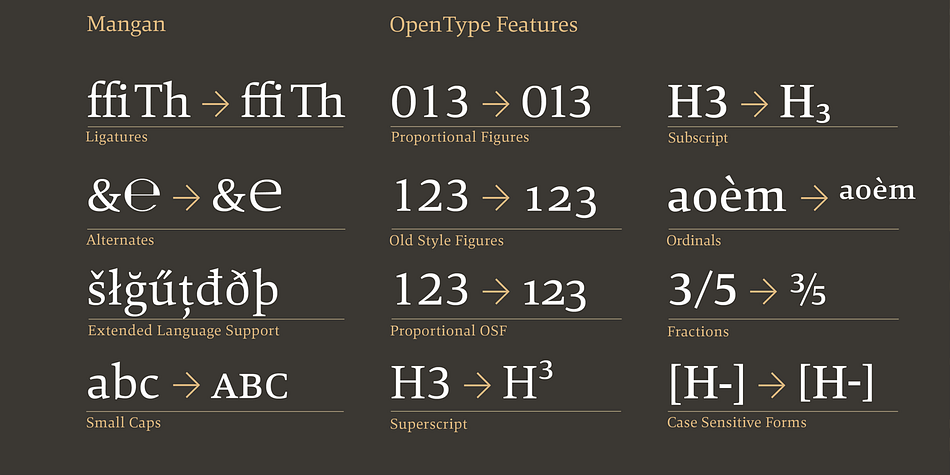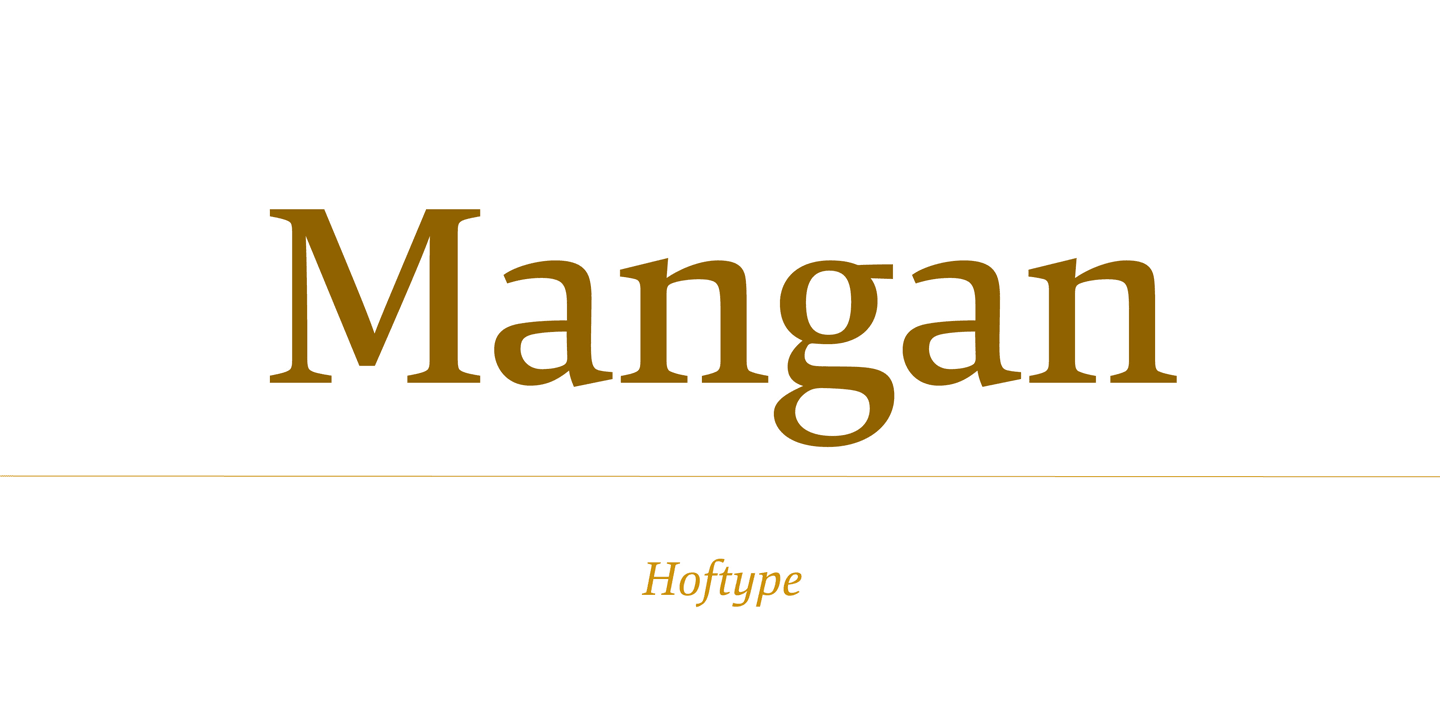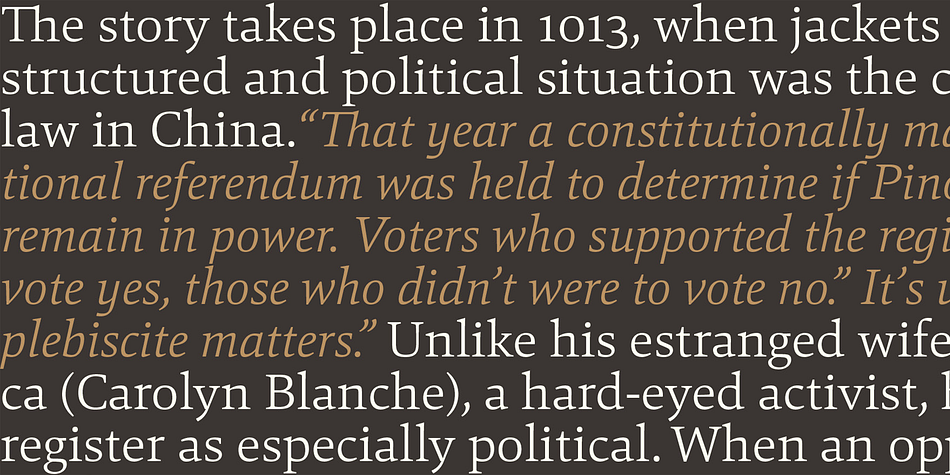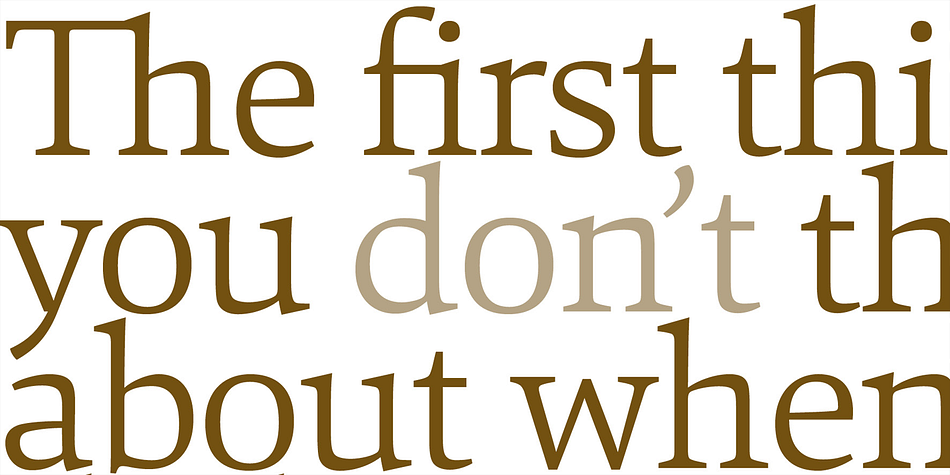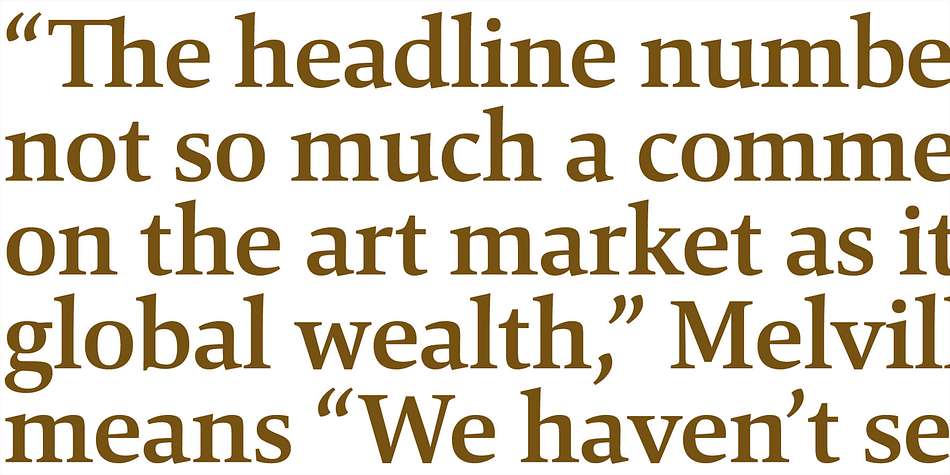
Mangan is a serif font family. This typeface has fourteen styles and was published by Hoftype.
Mangan is a new text face which combines classical rationality with contemporary design. It appears dynamic, elegant, vivid and provides a high standard of functionality.
The Mangan family comprises 14 styles and is well suited for ambitious typography. It comes in OpenType format with extended language support. All weights contain small caps, ordinals, ligatures, proportional lining figures, tabular lining figures, proportional old style figures, lining old style figures, matching currency symbols, fraction- and scientific numerals, and arrows.